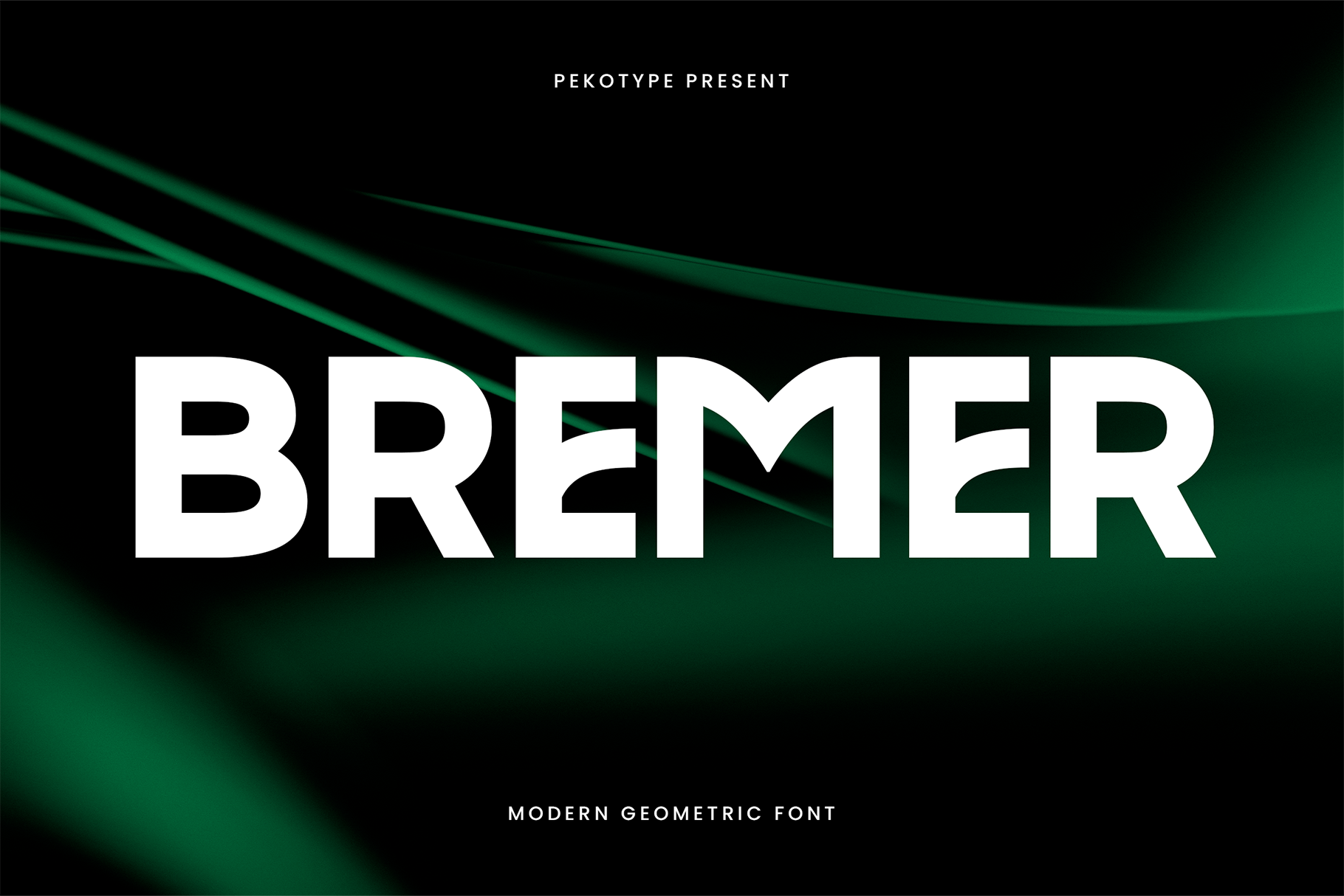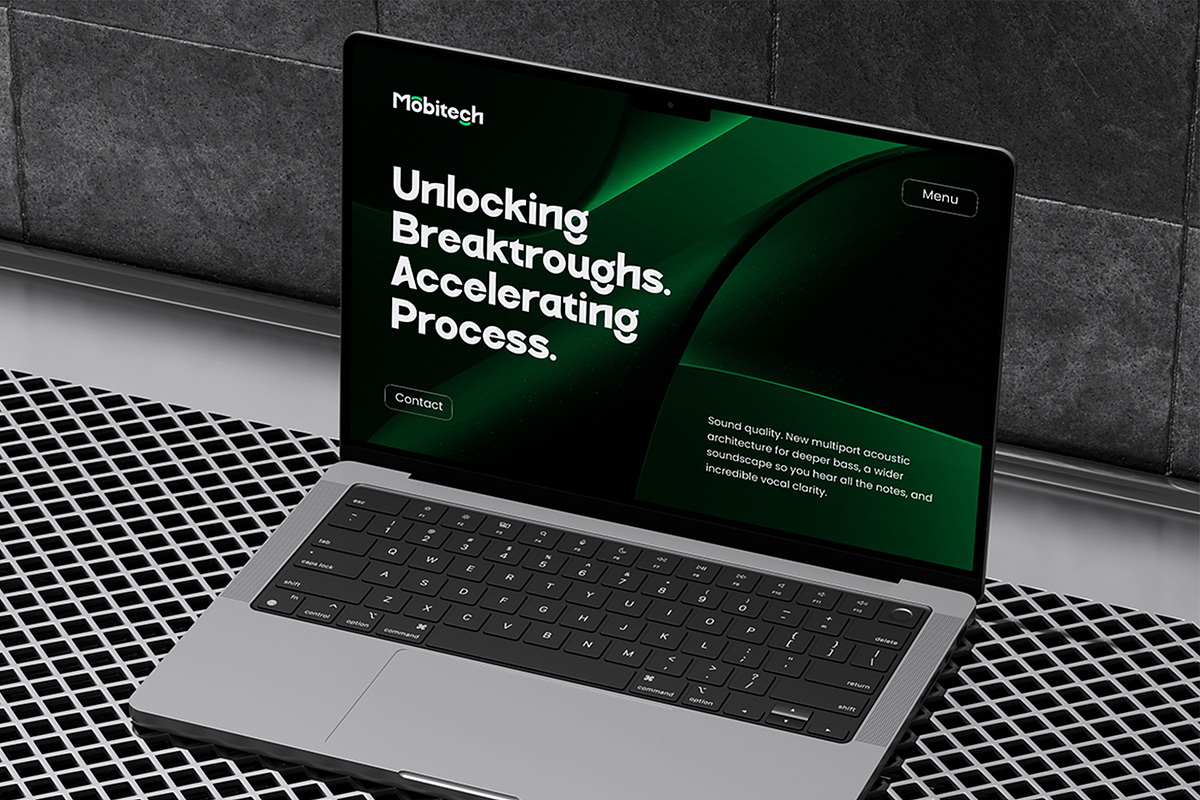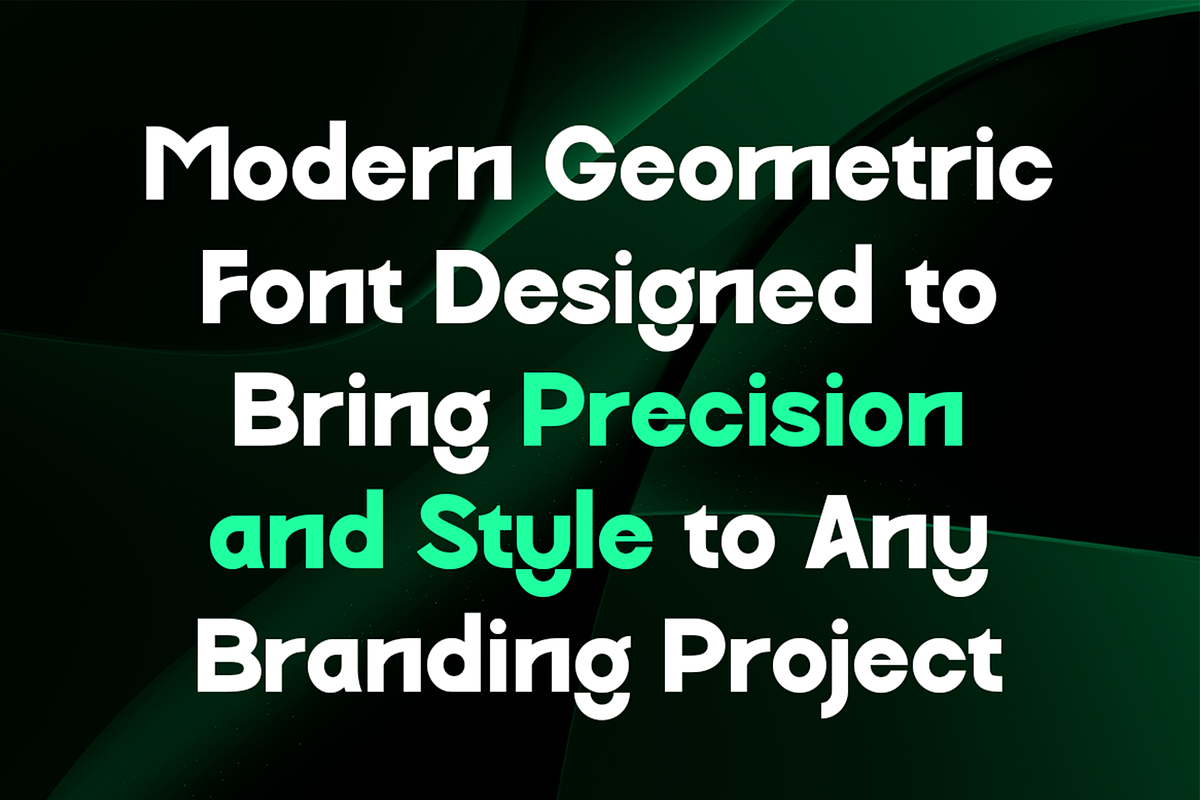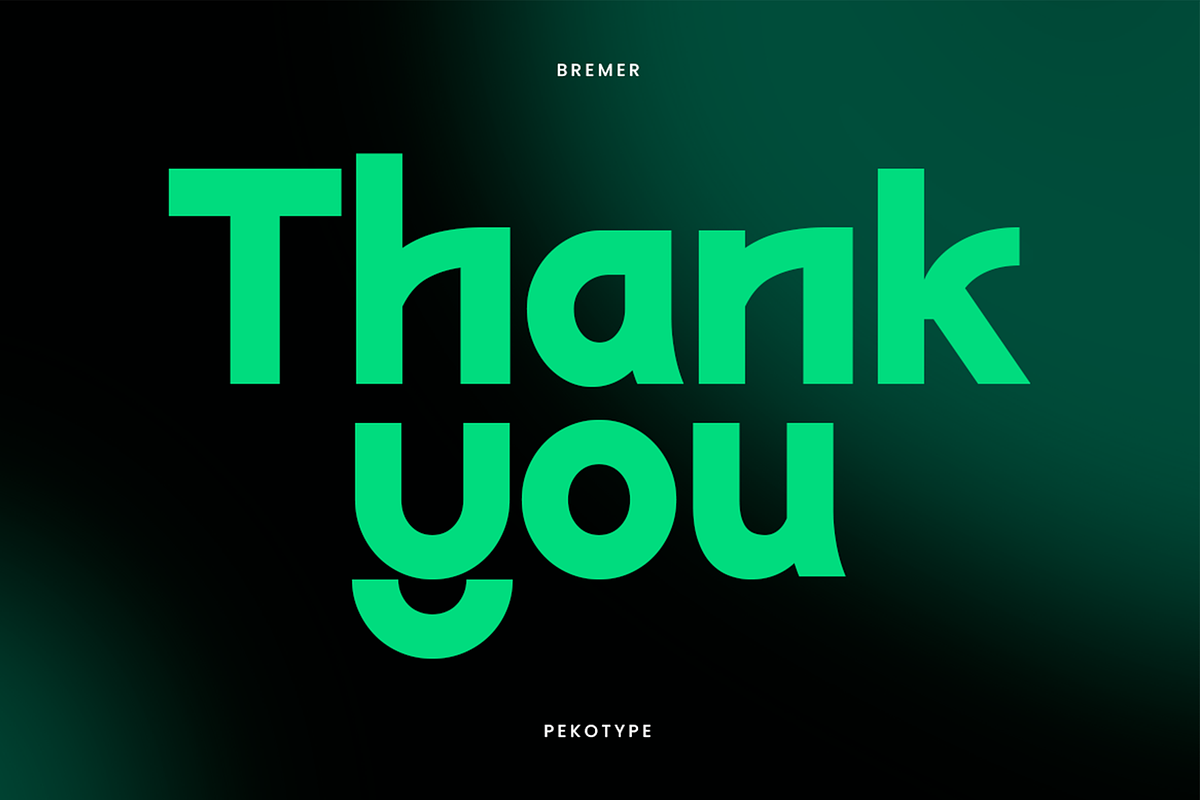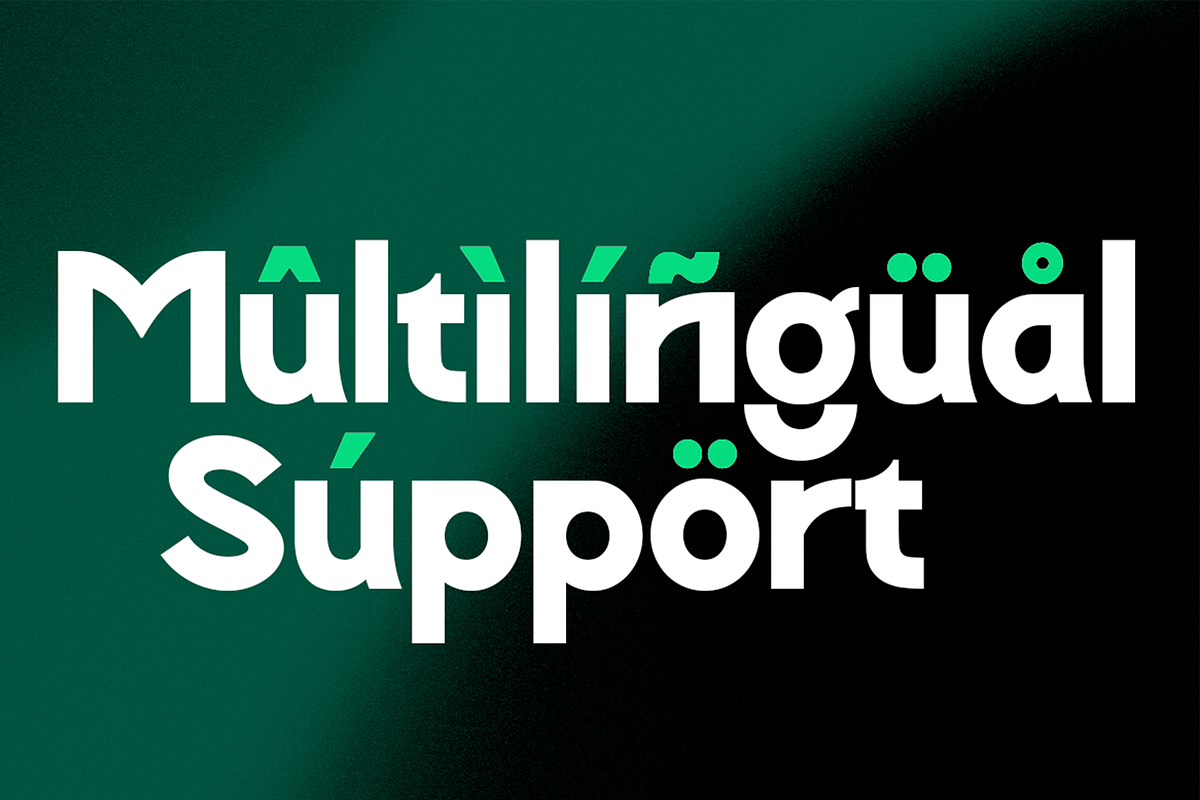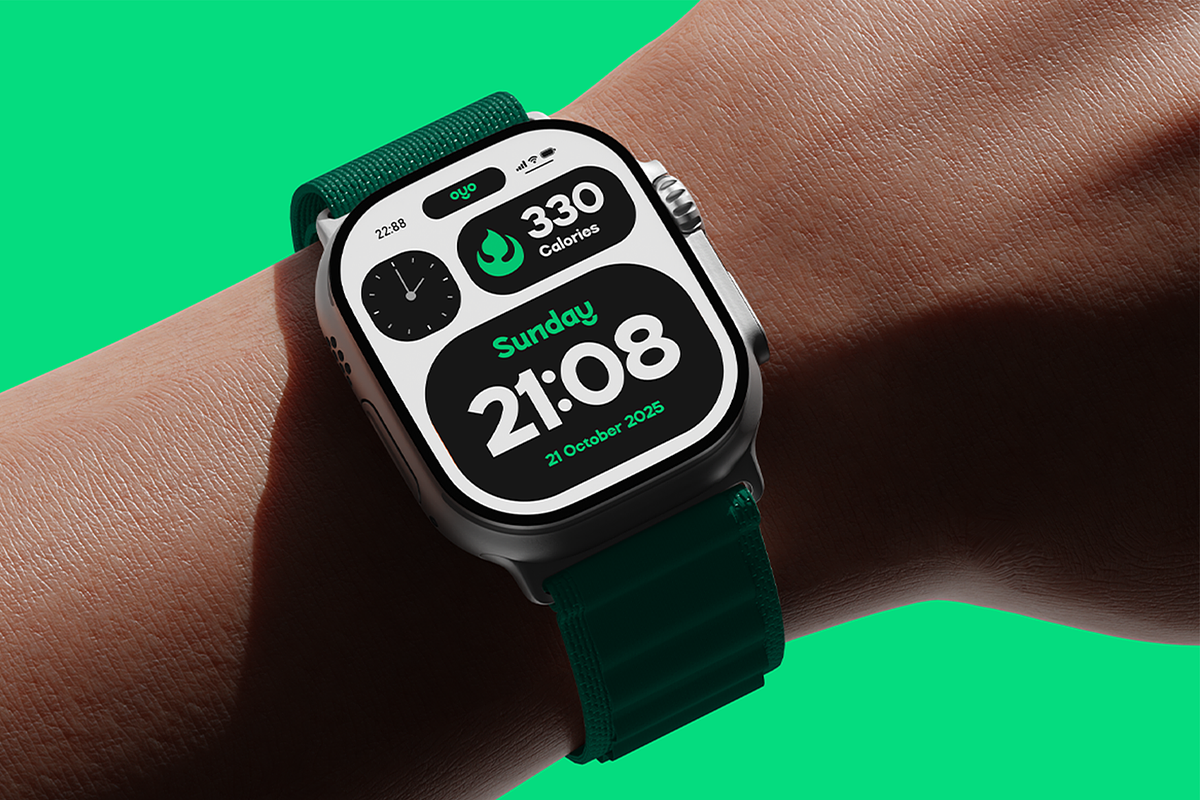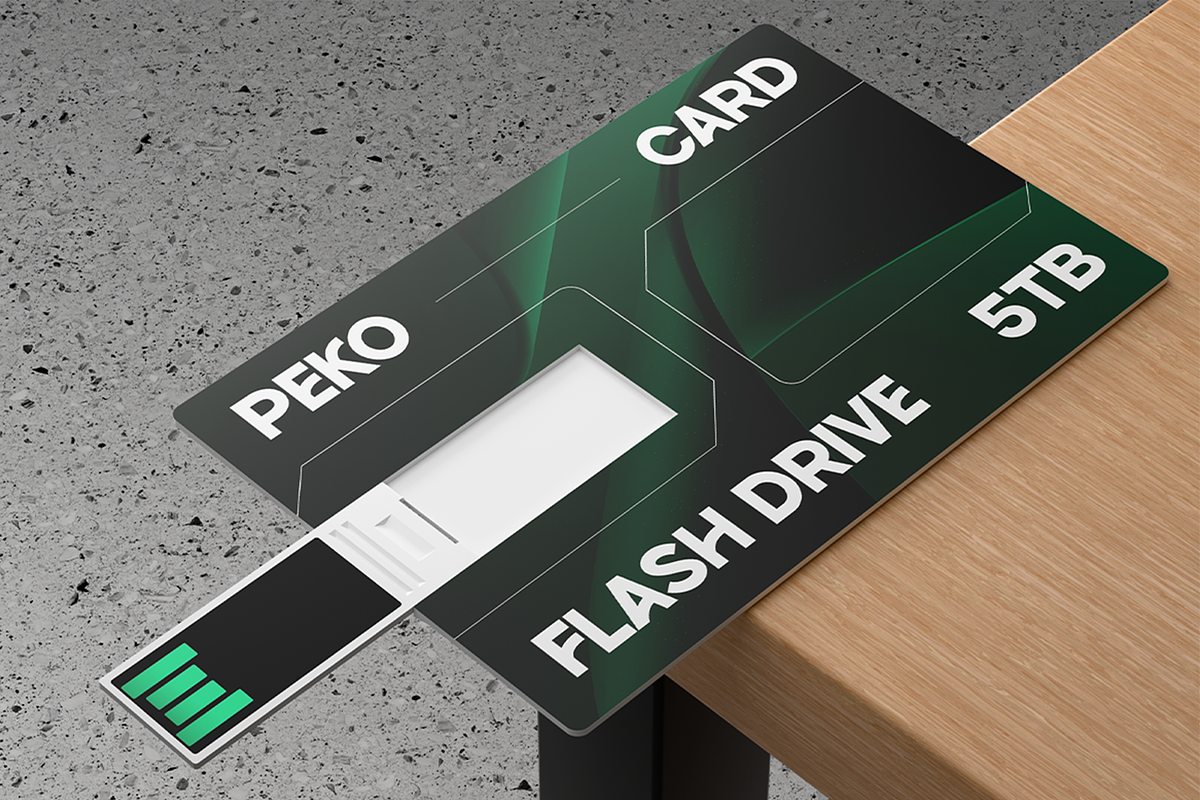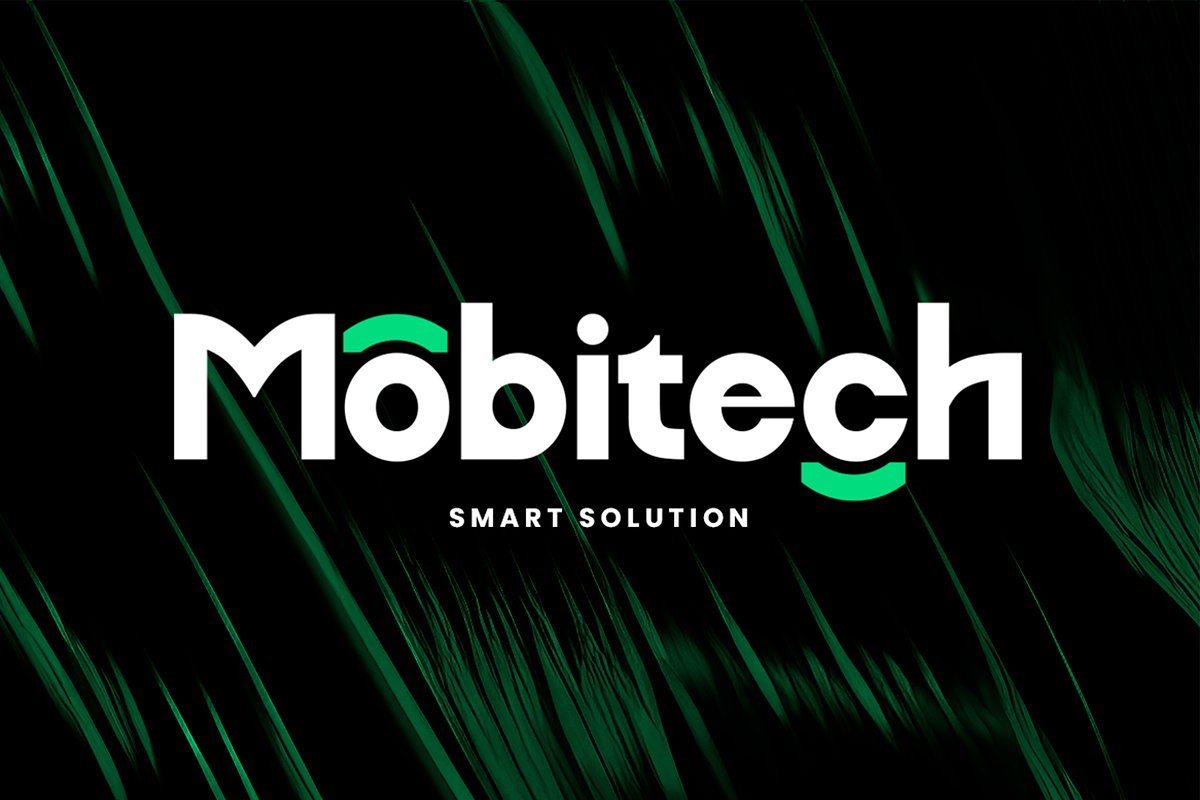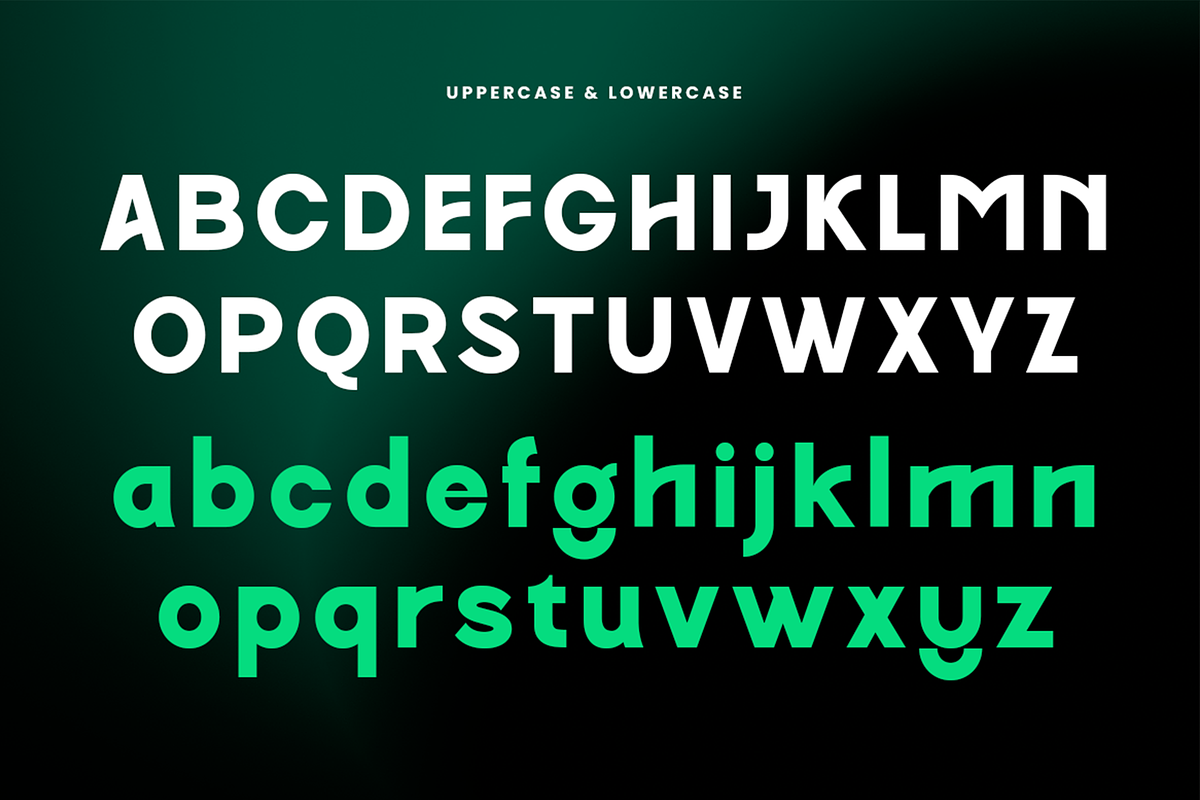
Bremer - Modern Geometric Font
BREMER – Modern Geometric Font with Precision and Clarity
BREMER is a modern geometric typeface designed to deliver precision, structure, and a clean contemporary look. Built with sharp lines, balanced proportions, and confident letterforms, BREMER reflects a strong sense of technology, innovation, and modern visual identity—perfect for today’s digital-first design world.
Featuring both uppercase and lowercase characters with multilingual support, BREMER is highly versatile and ready for global use. Its geometric construction ensures excellent readability while maintaining a bold, professional presence. This makes BREMER ideal for branding, logos, marketing campaigns, tech products, corporate identities, social media graphics, posters, presentations, and promotional materials.
BREMER is crafted to perform consistently across digital and print media. Whether used in large headlines, clean logotypes, or modern layouts, it delivers a precise, futuristic tone without feeling cold or rigid. If you’re looking for a modern geometric font that communicates clarity, efficiency, and innovation, BREMER Typeface is a powerful choice for forward-thinking designers.